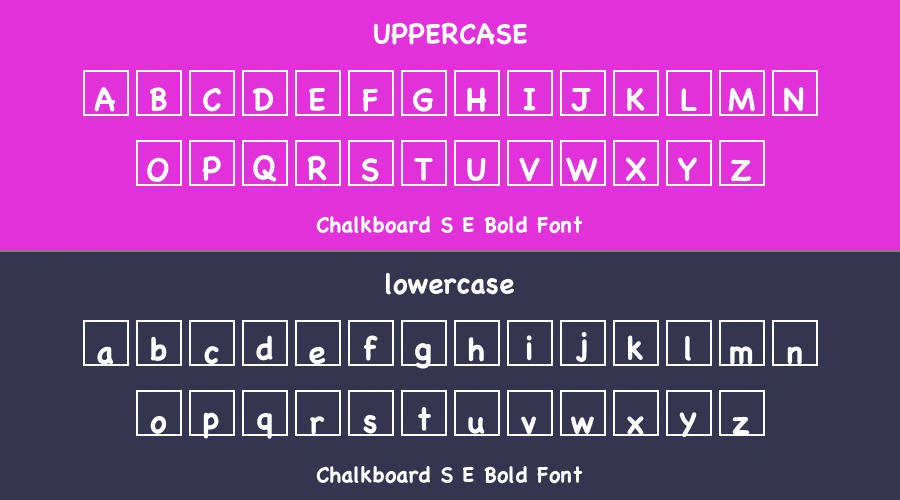
About Chalkboard S E Bold Font
Chalkboard S E Bold Font embodies typographic excellence through its masterful combination of distinctive details and expressiveness. Created for legal documents, this typeface delivers exceptional impact and practical utility across all applications. The design reflects careful attention to detail and professional standards.
Advanced capabilities include distinctive ball terminals and versatile traditional figures, giving designers creative control. When used in traditional announcements, Chalkboard S E Bold Font exhibits remarkable file optimization. The harmonious balance between stem weight and historical references sets this typeface apart.